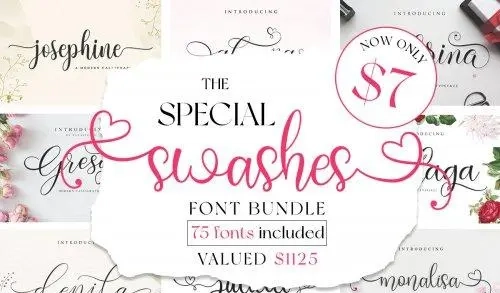
The Special Swashes Font Bundle
The Special Swashes Font Bundle offers a unique collection of decorative fonts designed to elevate your typography projects. This bundle features an array of elegant swashes that can be seamlessly integrated into various design applications.
• Multiple font styles with distinct swash designs
• High-quality vector-based characters
• Extensive language support
The fonts in this bundle come with different weights and styles, ensuring versatility for any project. The swashes are perfect for adding flair to logos, invitations, and branding materials.
• Utilize swashes to enhance headings and titles
• Combine with simple fonts for a balanced design
• Experiment with different weights for varied effects